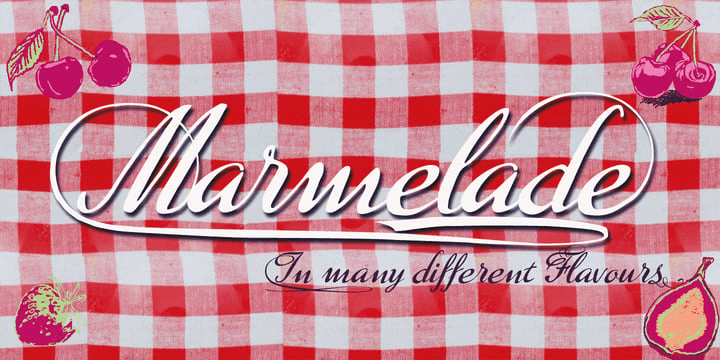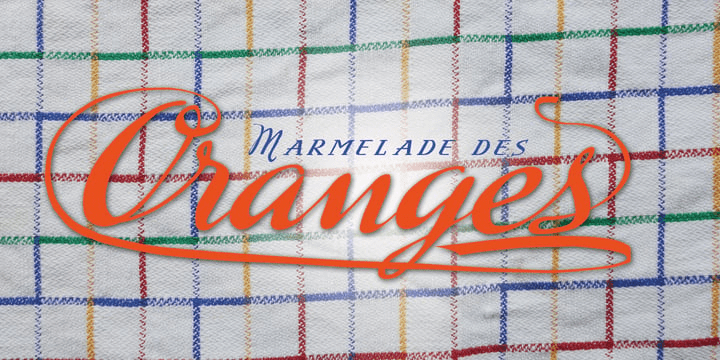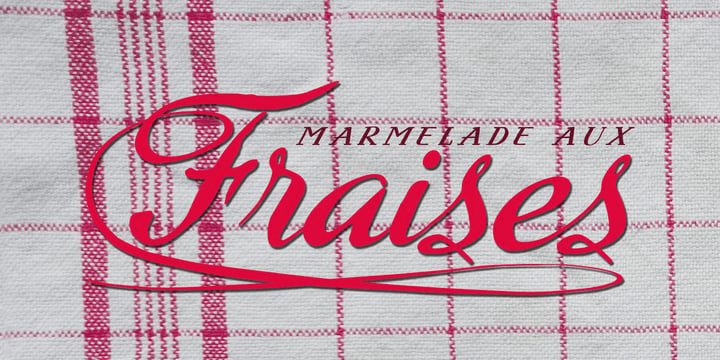
Marmelade
This family includes 9 font styles, with options such as Basic, Plus, Print, Start End, Underswing, and language-specific Words styles, along with a Fruits set. That mix makes it a flexible choice for invitations, labels, lettering pieces, and other designs that benefit from a personable script with decorative extras.
Use it when you want lettering that feels crafted rather than mechanical—ideal for packaging, specialty branding, greeting pieces, and display settings where a flowing script can add charm, movement, and a touch of refinement.